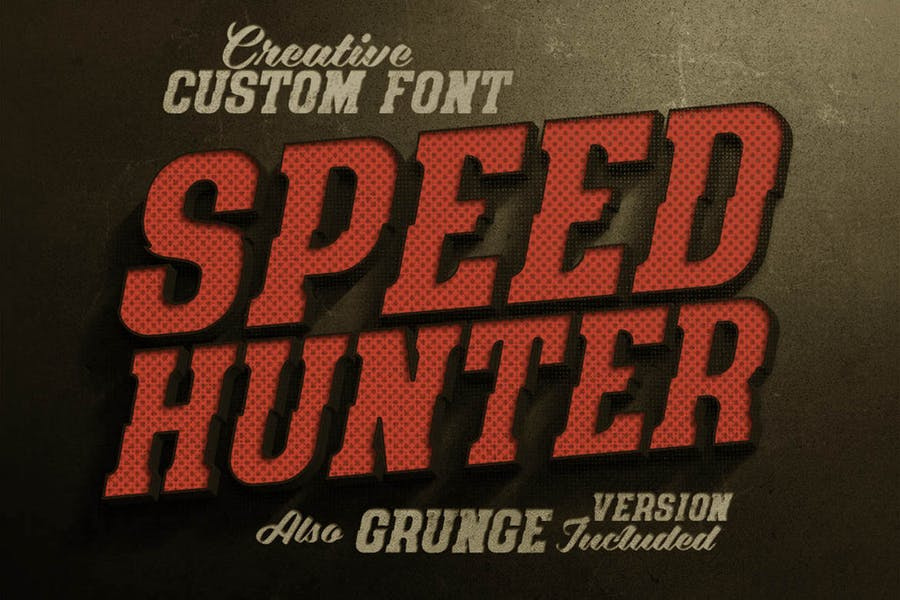
SpeedHunter Font
SpeedHunter Font is perfect for racing team branding, automotive event posters, speed shop signage, motorsport magazine layouts, performance car dealerships, racing game interfaces, motorcycle brand identity, extreme sports promotions, adrenaline-focused advertising, high-speed chase movie titles, turbo equipment packaging, and velocity-driven marketing campaigns.
SpeedHunter Font is exciting because it captures the raw adrenaline and relentless pursuit of speed with dynamic letterforms that appear to streak across the page like lightning, perfectly embodying the fearless spirit of racers and thrill-seekers who live for the rush of pushing limits and chasing velocity.
The SpeedHunter Font family includes high-octane variations: Regular, Bold, Italic, Condensed, Extended, and Motion blur styles, providing designers with a complete speed-focused typography arsenal to create kinetic compositions that celebrate the exhilarating world of racing and high-performance pursuits.
The font's dynamically crafted letterforms reflect the aerodynamic precision and cutting-edge technology of high-performance vehicles, with angular strokes and aggressive proportions that suggest incredible speed and mechanical excellence. Each character embodies the perfect fusion of engineering precision and raw power that defines championship racing.
SpeedHunter Font excels in creating memorable brand experiences for businesses in automotive, motorsports, and extreme adventure sectors. Its high-energy presence transforms ordinary communications into adrenaline-charged statements that resonate with audiences seeking performance, excitement, and the thrill of competition and speed.
Professional designers value how SpeedHunter Font maintains its racing character while providing exceptional functionality across diverse high-energy applications. The comprehensive style range ensures optimal performance from intimate racing gear branding to massive speedway signage, maintaining consistent velocity appeal and competitive credibility.
This remarkable typeface brings instant speed credibility to automotive ventures and performance-focused businesses. From racing teams to performance modification shops, SpeedHunter Font creates lasting impressions that communicate power, precision, and the relentless pursuit of victory and speed excellence.